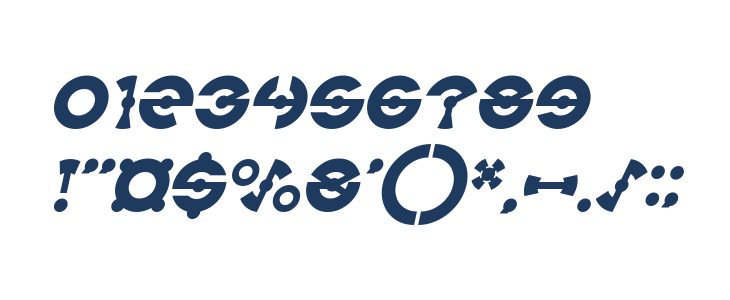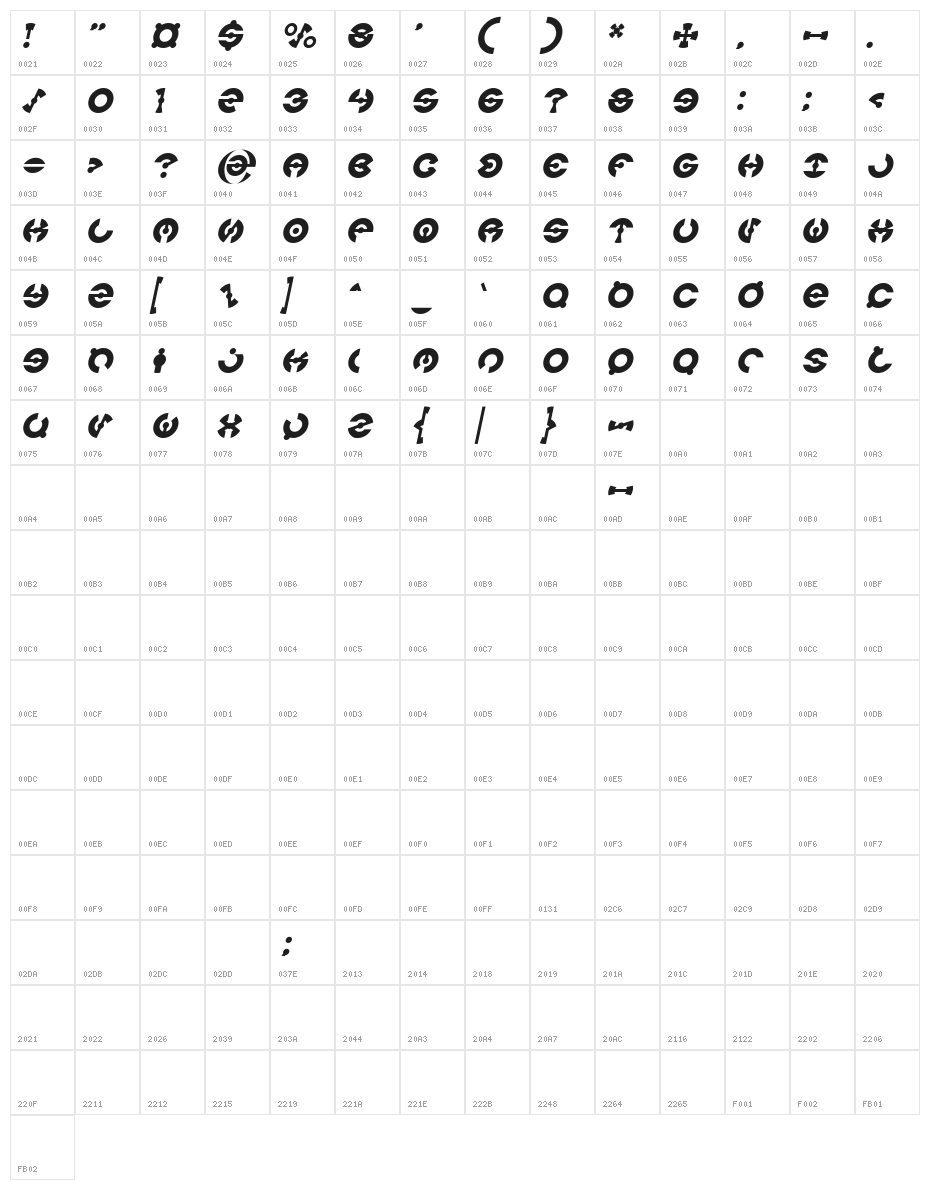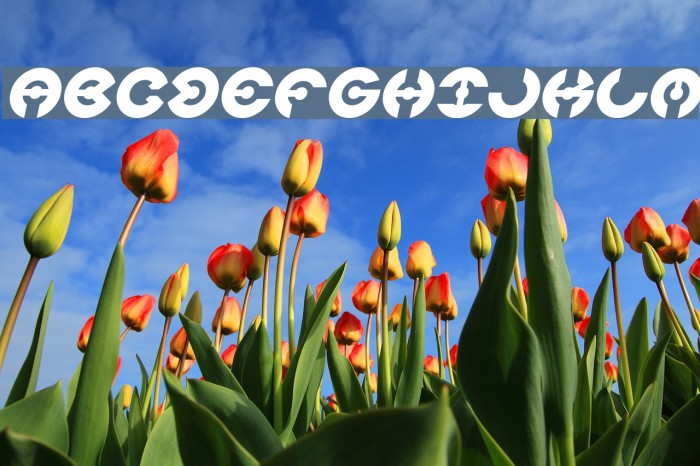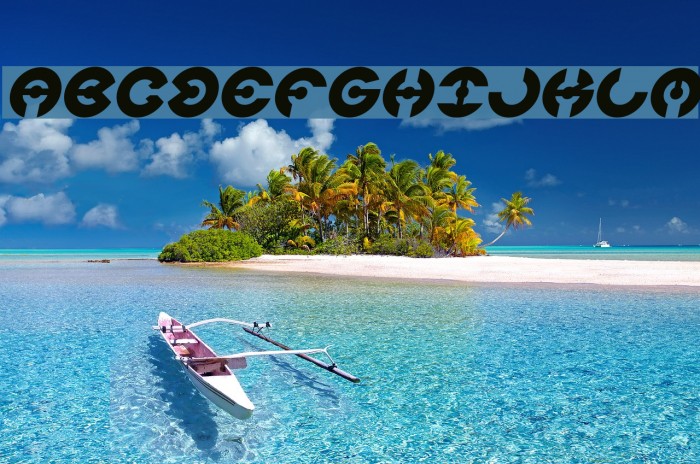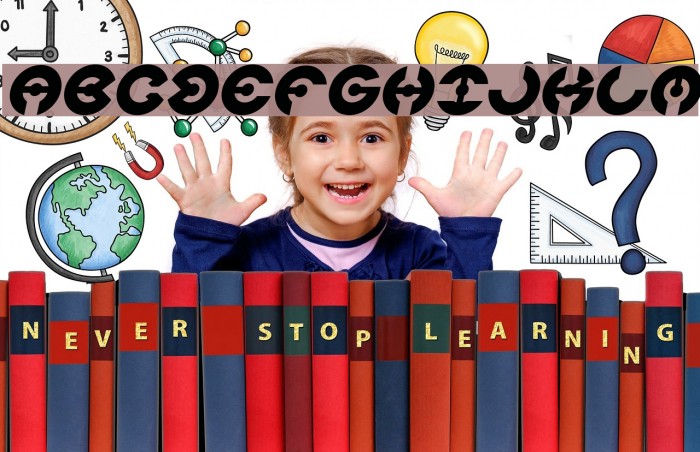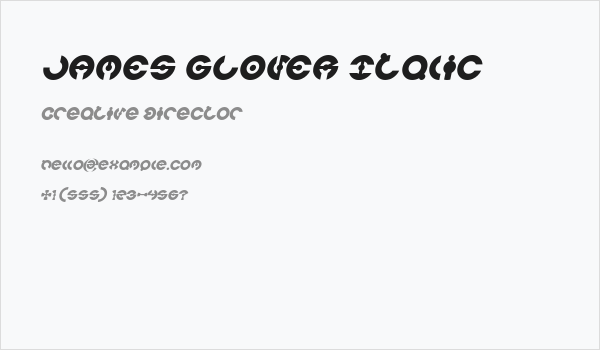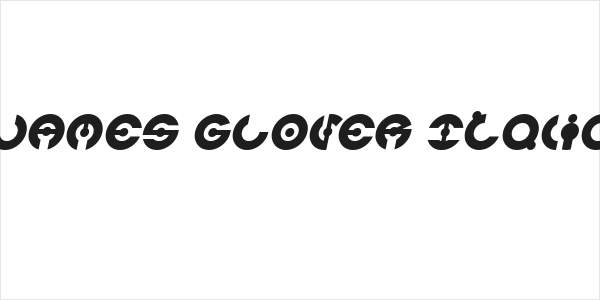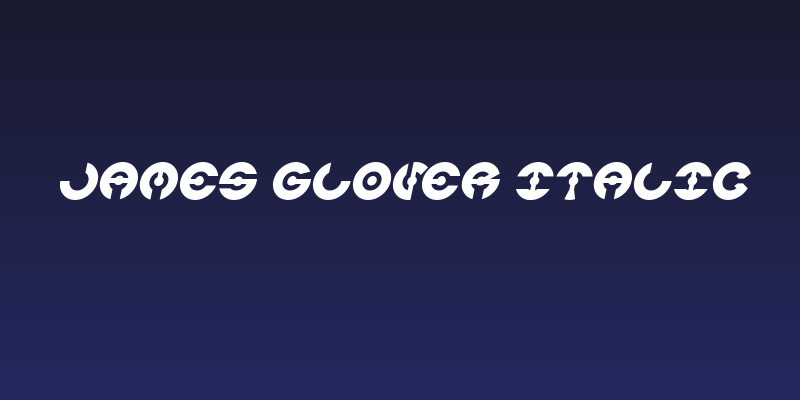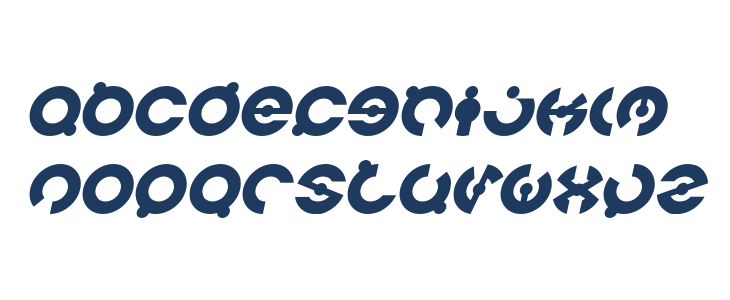
JAMES GLOVER Italic Font
JAMES GLOVER Italic Description
This font features a bold and unique design with a futuristic and geometric aesthetic. Each character is crafted with a circular motif, incorporating cut-out sections that create a striking visual effect. The boldness of the strokes is consistent throughout, giving the font a strong presence. The uppercase and lowercase letters maintain a uniform style, with the lowercase mirroring the uppercase in form and structure. Numbers and special characters follow the same design principles, ensuring a cohesive look across all glyphs. The font's distinct style makes it suitable for projects that require a modern and eye-catching typeface.
| Proposed Projects | Perfect for futuristic branding, sci-fi themed designs, technology-related projects, and eye-catching headlines. |